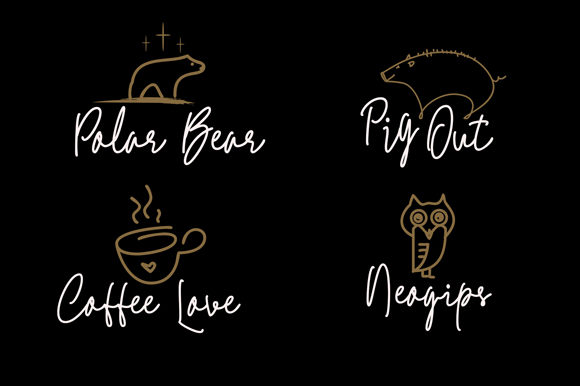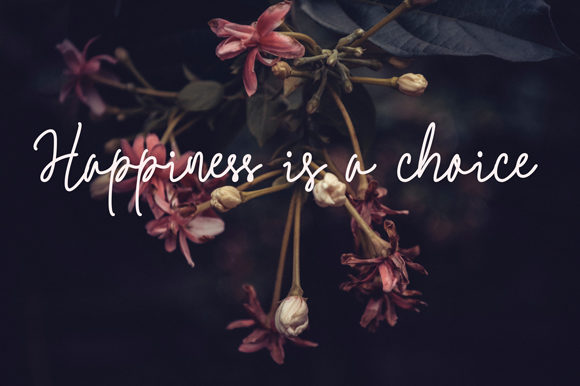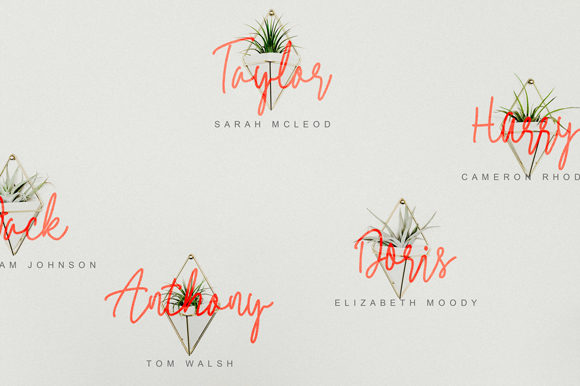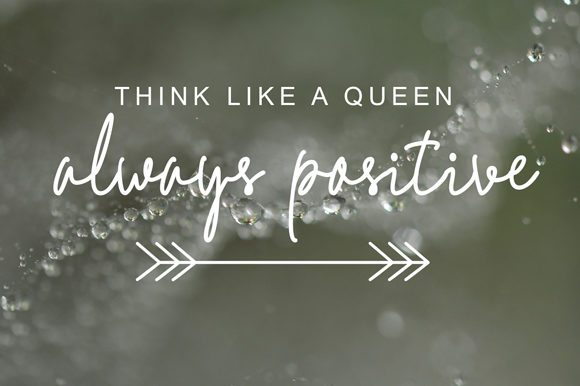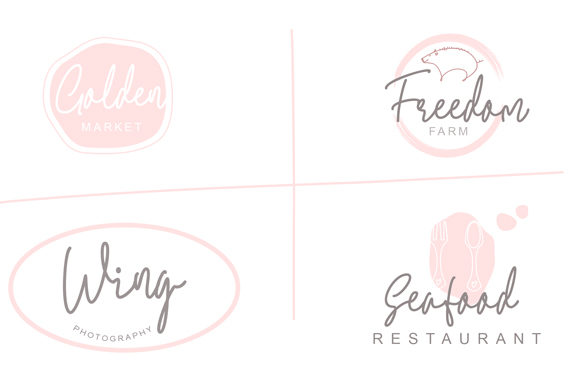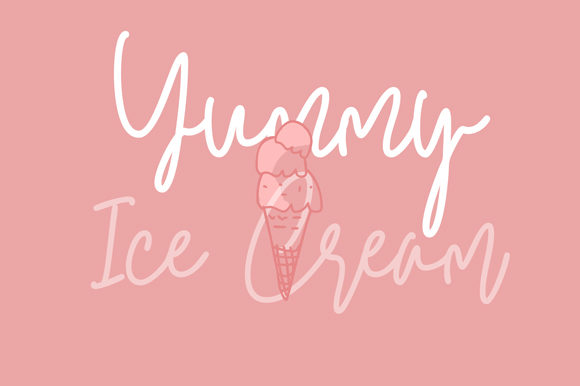
Aquiline Font: Elevate Your Designs with this Organic and Cursive Script Font
Are you a designer or crafter looking for a unique and versatile font to add to your library? Look no further than the Aquiline Font. This organic and cursive script font is an incredibly valuable asset that can elevate any creation, regardless of the topic or theme. In this article, we’ll explore the features and benefits of the Aquiline Font, and why it’s a must-have for any designer or crafter.
What is Aquiline Font?
Aquiline Font is a beautiful, hand-crafted font that features organic and cursive script letters. Its unique and flowing design makes it perfect for a wide range of applications, from creative projects to commercial use. The font is designed to be highly legible and versatile, making it suitable for use in a variety of contexts, including headings, titles, and body text.
Key Features of Aquiline Font
So, what makes the Aquiline Font so special? Here are some of its key features:
• Organic and Cursive Design: The Aquiline Font features a beautiful, organic design with a cursive script style that adds a touch of elegance and sophistication to any project.
• Highly Legible: Despite its cursive nature, the Aquiline Font is highly legible, making it suitable for use in body text as well as headings and titles.
• Versatile: The font is designed to be versatile, making it suitable for use in a wide range of applications, from creative projects to commercial use.
• Hand-Crafted: The Aquiline Font is a hand-crafted font, giving it a unique and personal touch that sets it apart from more generic fonts.
Benefits of Using Aquiline Font
So, why should you choose the Aquiline Font for your next project? Here are some of the benefits of using this amazing font:
• Elevate Your Designs: The Aquiline Font has the potential to elevate any creation, adding a touch of elegance and sophistication that sets it apart from more generic fonts.
• Add a Personal Touch: The hand-crafted nature of the Aquiline Font gives it a unique and personal touch that can help to add a human element to your designs.
• Stand Out from the Crowd: With its organic and cursive design, the Aquiline Font is sure to help your designs stand out from the crowd and grab attention.
• Save Time: With the Aquiline Font, you can create professional-looking designs in no time, saving you time and effort.
How to Use Aquiline Font
So, how can you use the Aquiline Font in your designs? Here are some ideas to get you started:
• Headings and Titles: Use the Aquiline Font to create stunning headings and titles that add a touch of elegance and sophistication to your designs.
• Body Text: The Aquiline Font is also suitable for use in body text, adding a touch of personality and flair to your written content.
• Logos and Branding: The Aquiline Font is perfect for use in logos and branding, adding a touch of sophistication and elegance to your brand identity.
• Creative Projects: Use the Aquiline Font to add a touch of personality and flair to your creative projects, such as art, crafts, and DIY projects.
Font Name Aquiline Font
In conclusion, the Aquiline Font is an incredibly valuable asset for any designer or crafter. Its organic and cursive design, highly legible nature, and versatility make it perfect for a wide range of applications. Whether you’re looking to elevate your designs, add a personal touch, or stand out from the crowd, the Aquiline Font is the perfect choice. So why wait? Download the Aquiline Font today and start creating stunning designs that showcase your creativity and style.